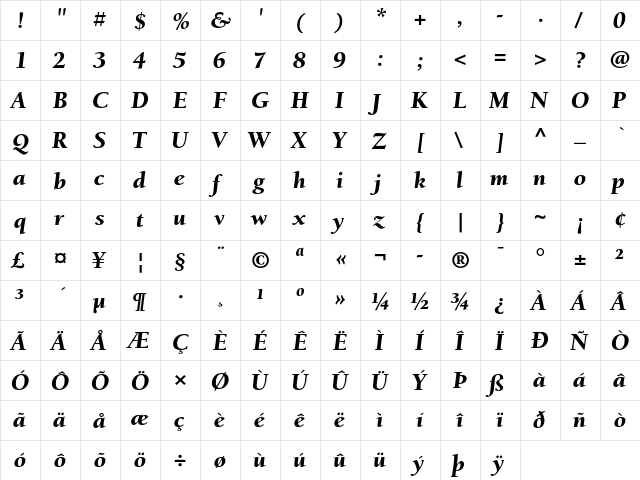
Berkeley Oldstyle Black Italic
Design Context for Berkeley Typeface
Berkeley brings classic typographic sensibility to the table — its serifs and measured letterforms reflect centuries of print heritage. The dynamic lean of this cut emphasises speed and emphasis in any layout.
Pro Tip: Set Berkeley with slightly loose tracking in headlines to let each letterform's detail read clearly at display sizes.